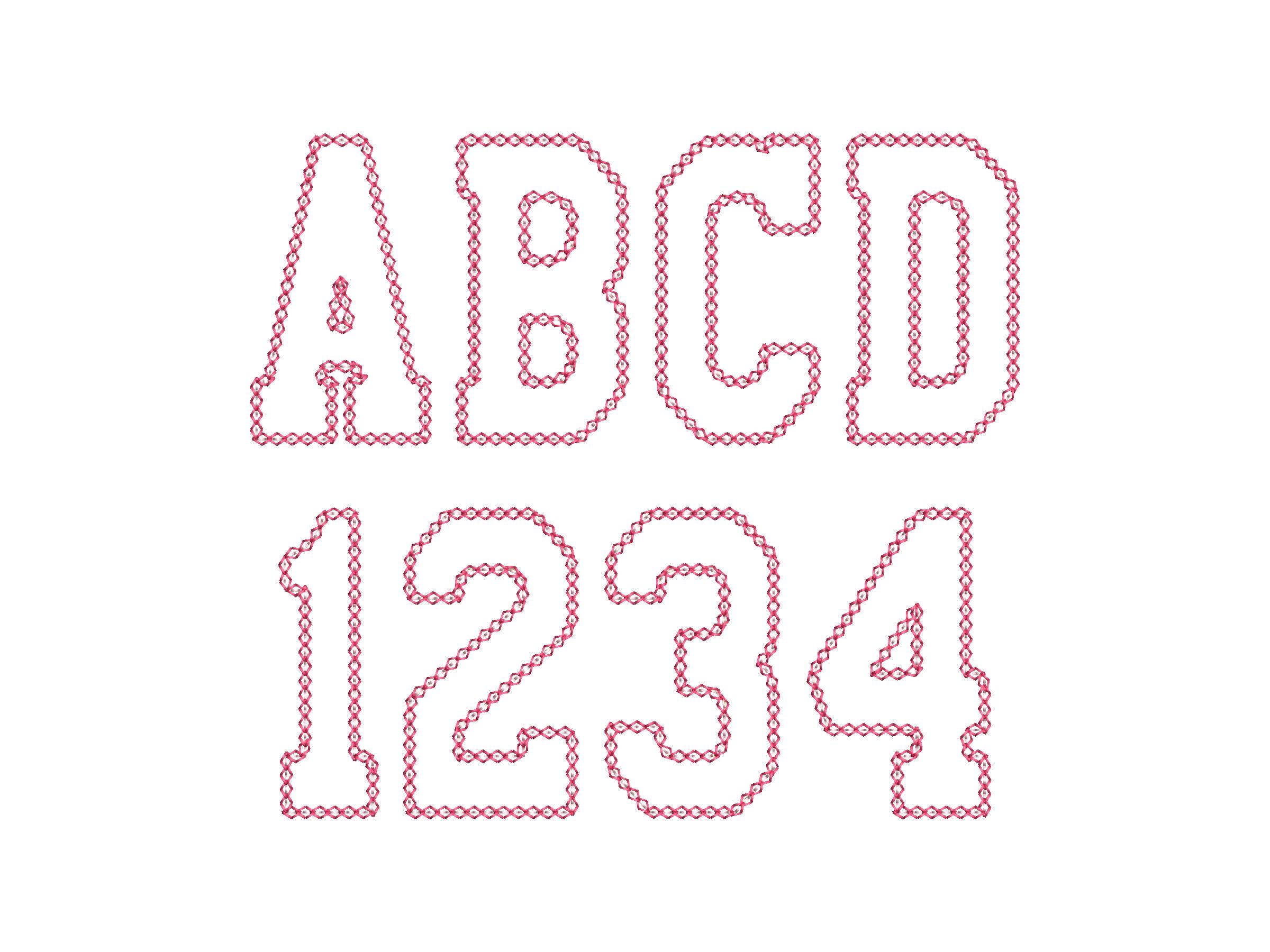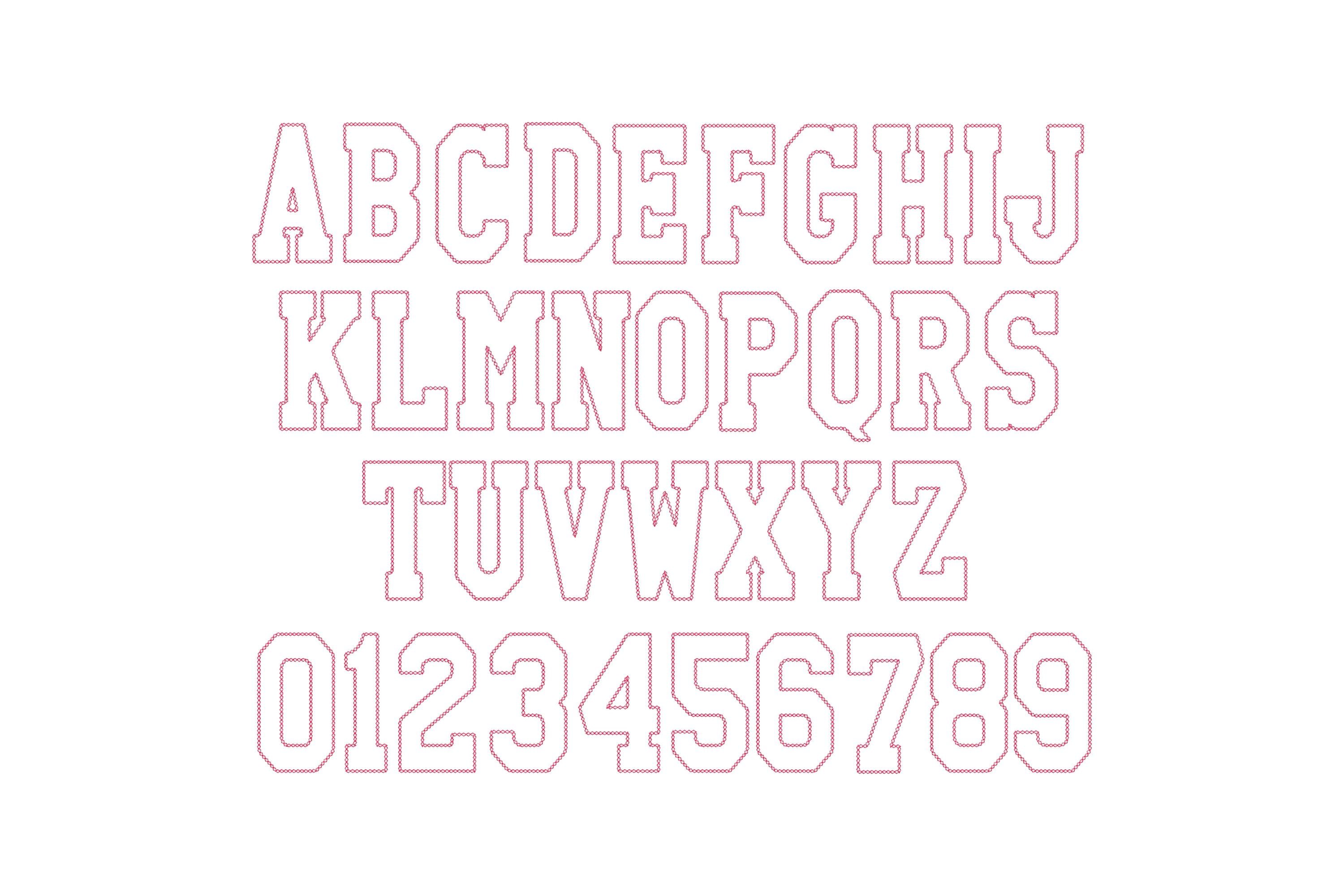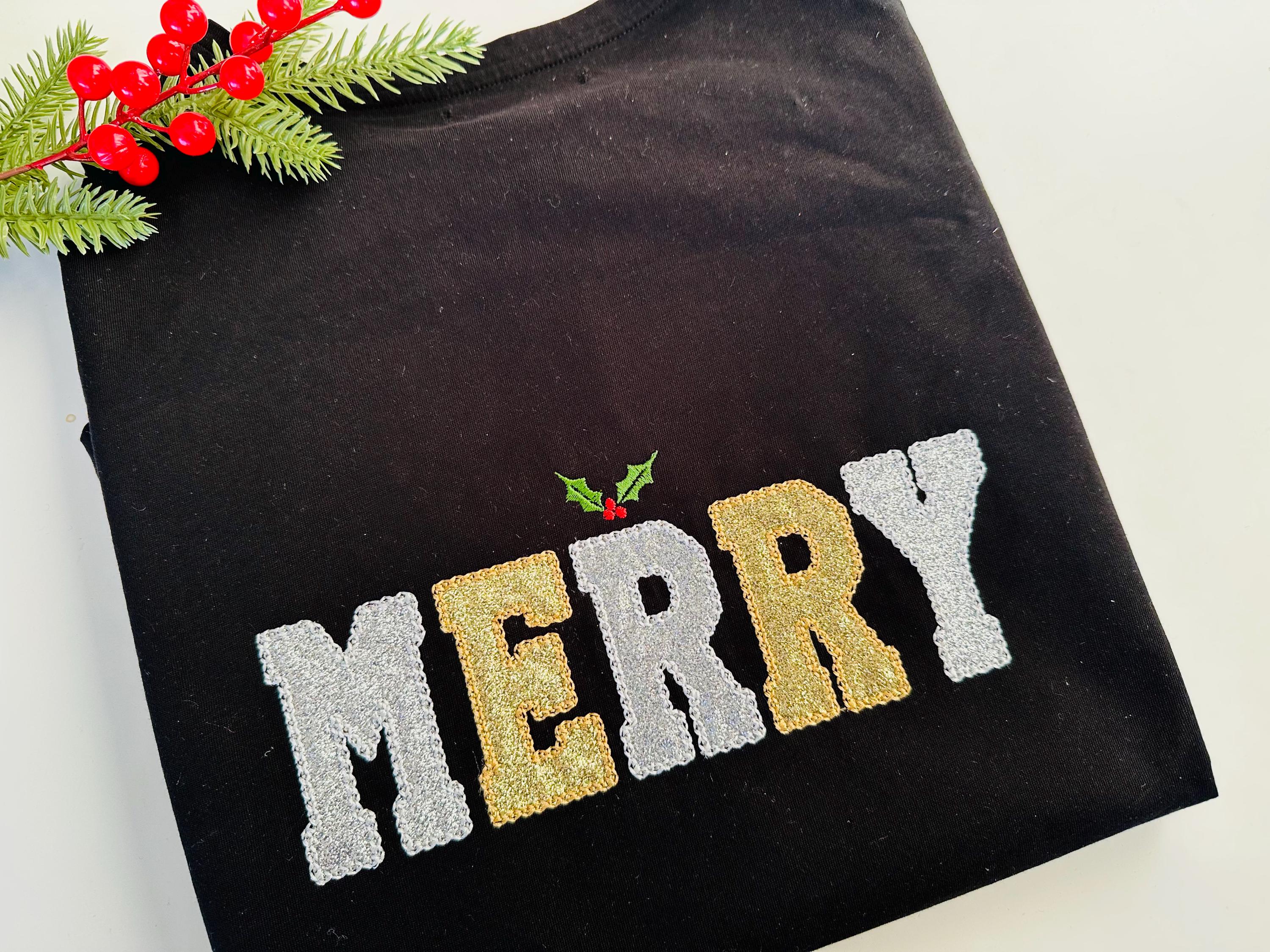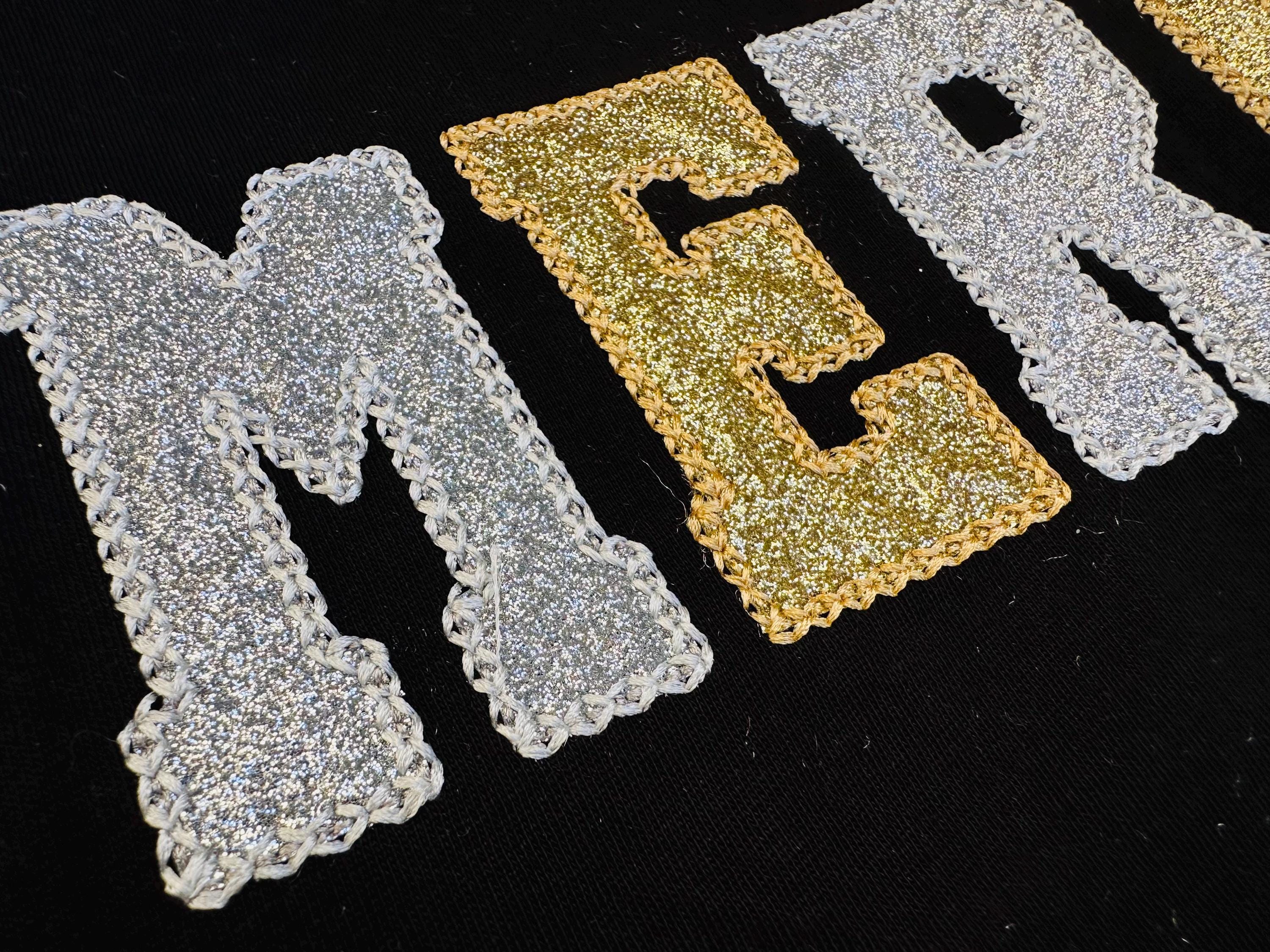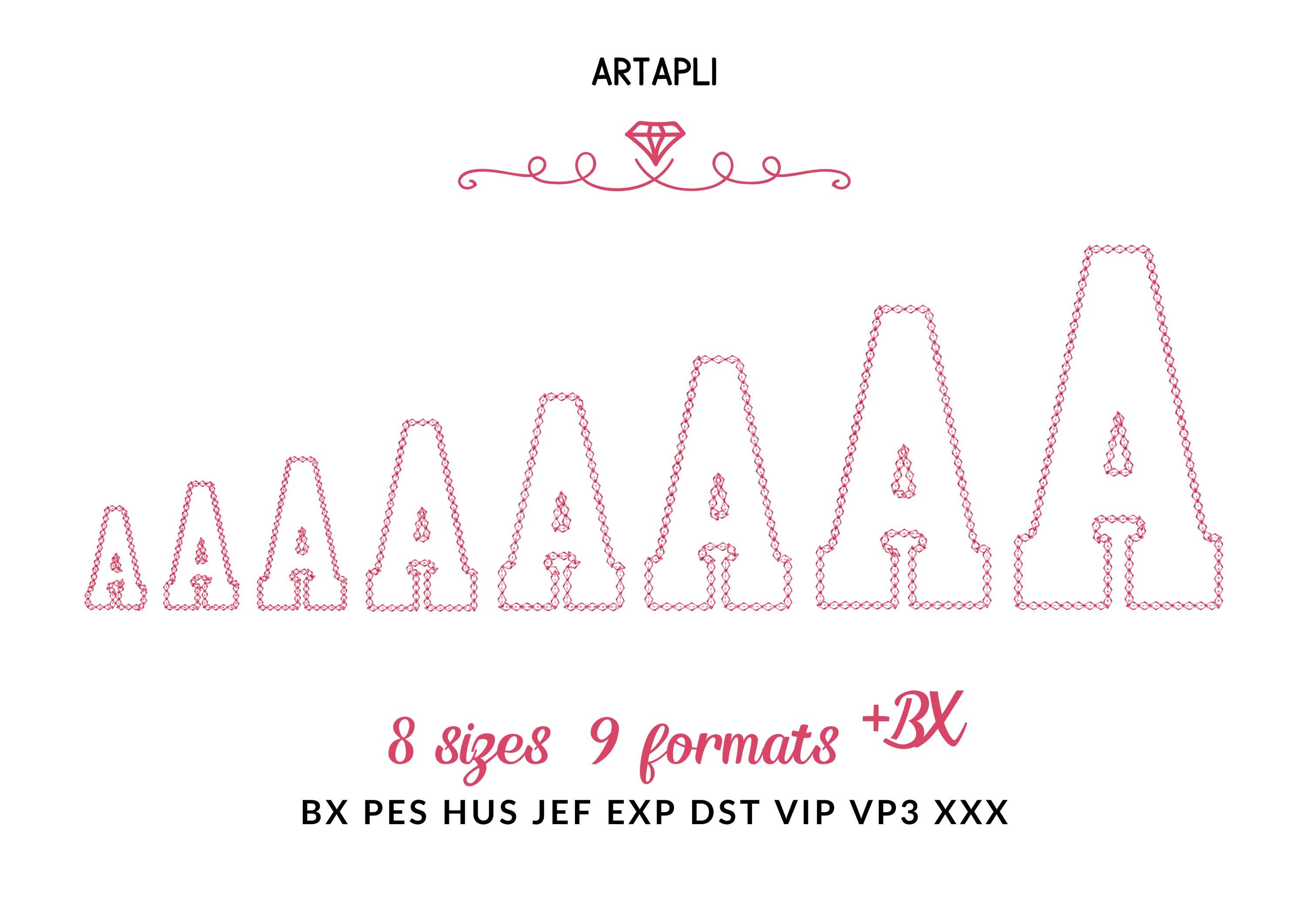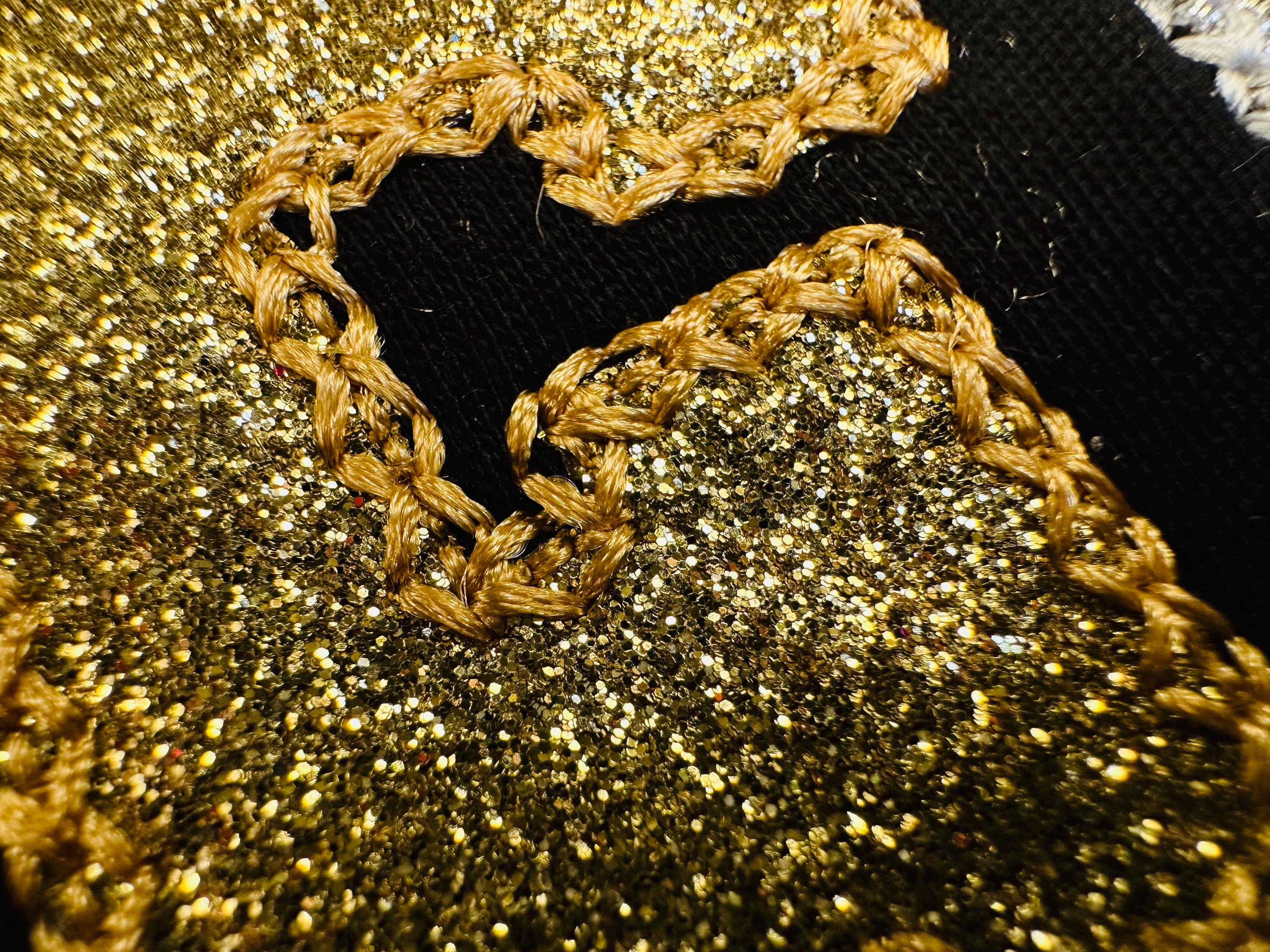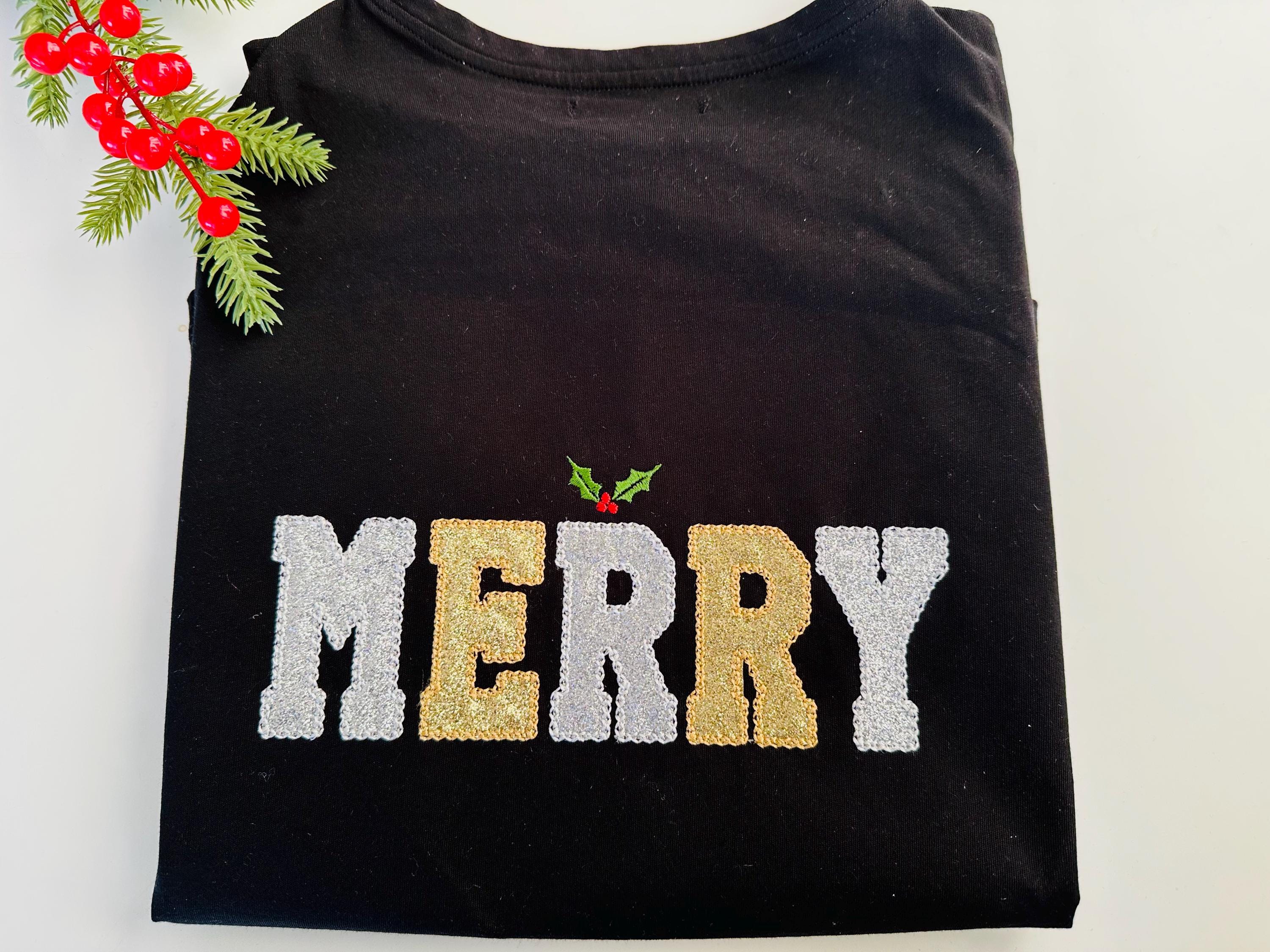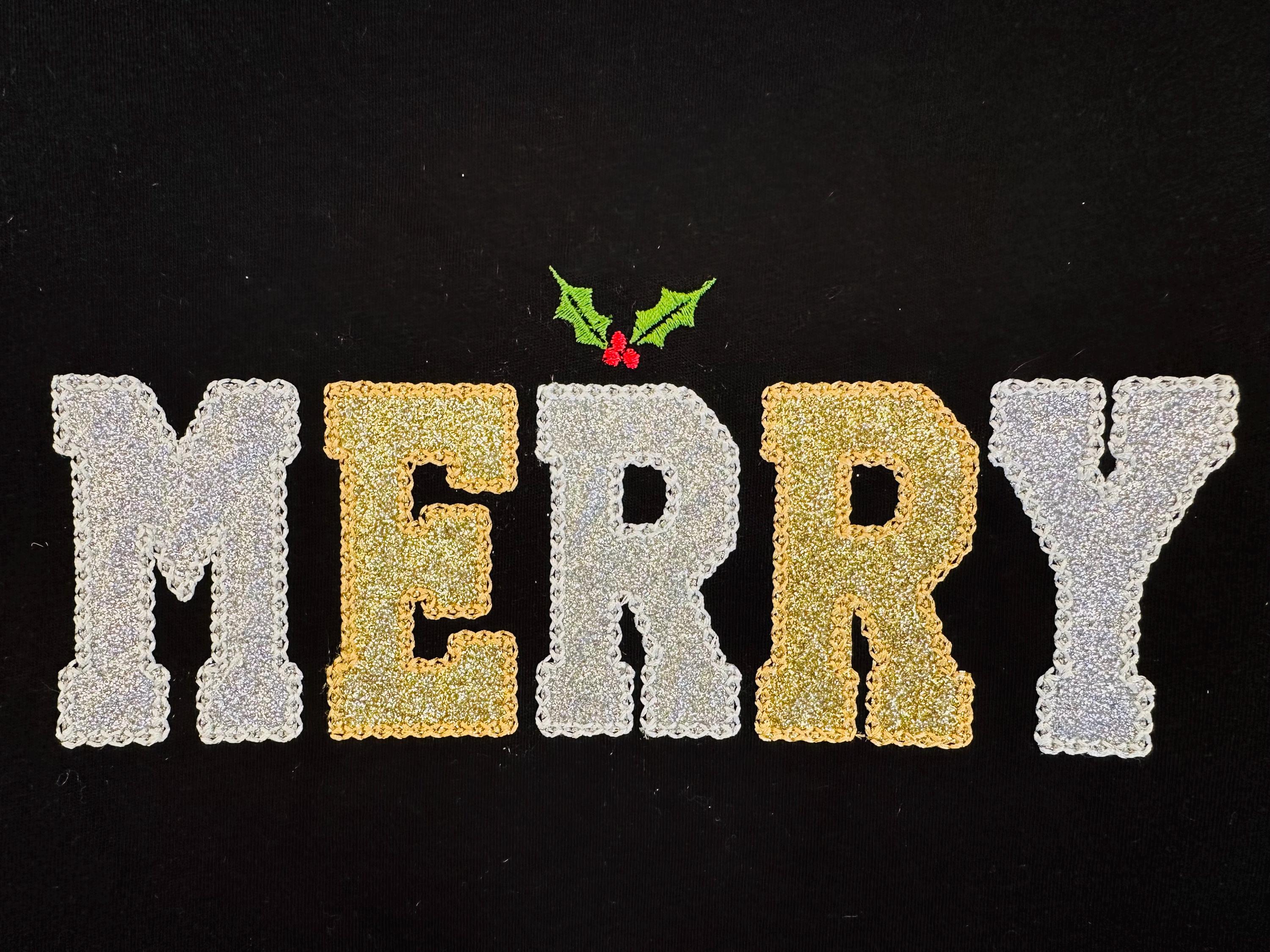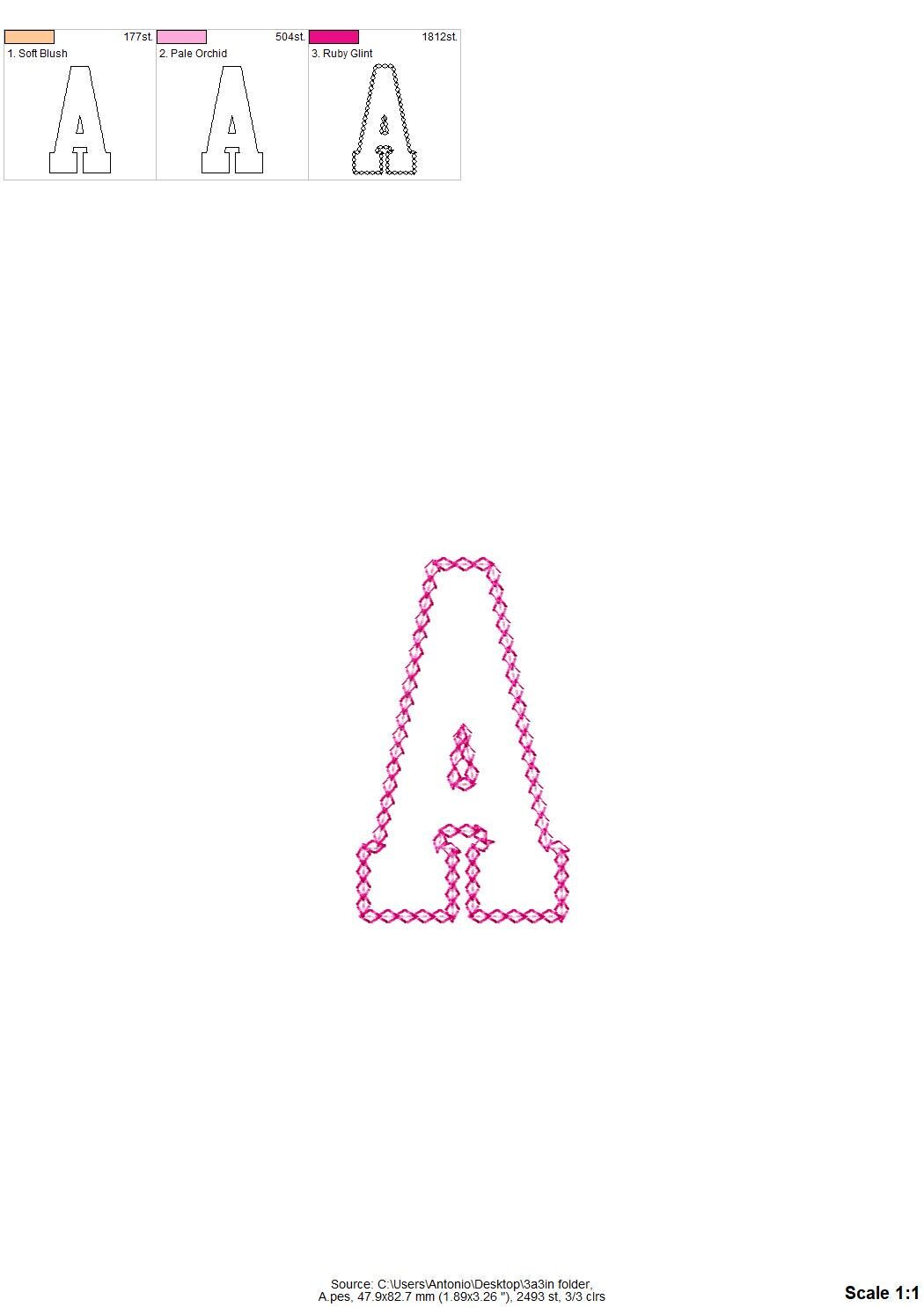
Varsity FONT Applique Diamond stitch outline machine embroidery designs block athletic monogram alphabet letters many sizes 1.8 up to 6.2 inches, and BX
Applique design.
Entire alphabet uppercase letters A-Z, and numbers 0-9.
I used HTV glitter vinyl with this design (shown in the photos).